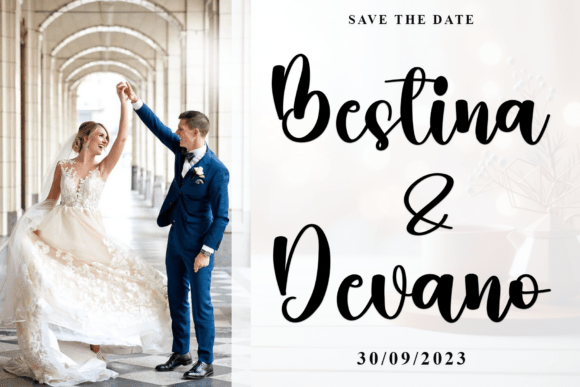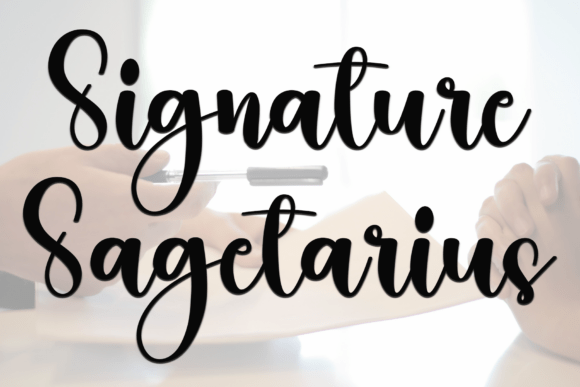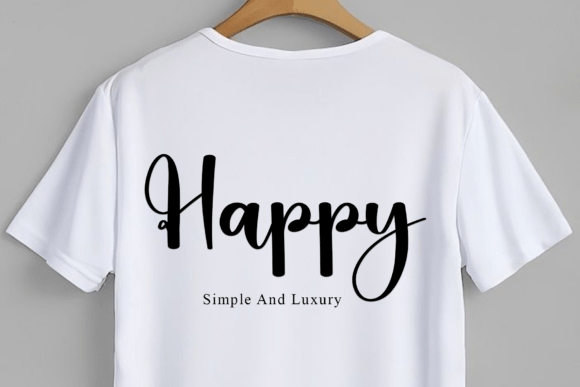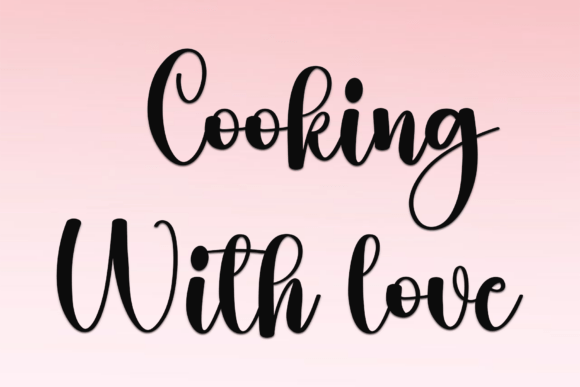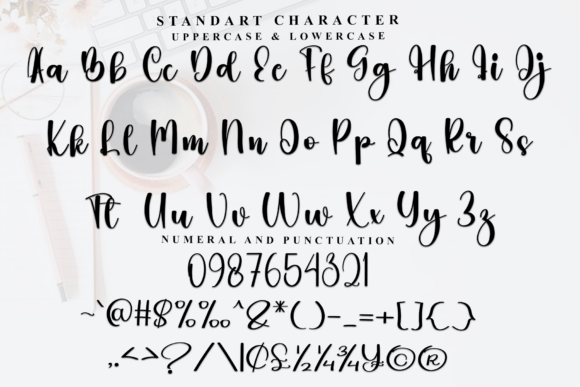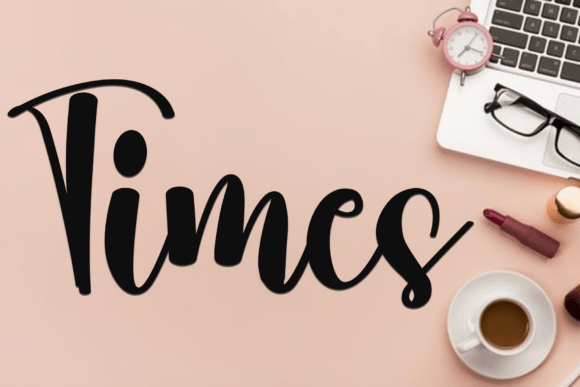
Summer Vibes in Every Letter: Introducing Beach Summer Font
There’s something special about the feeling of the warm sand between your toes and the sound of the waves crashing against the shore. It’s a moment that sparks creativity and inspires new ideas. For designers, this feeling can be captured in the perfect font – one that’s both beautiful and functional. That’s where the Beach Summer Font comes in, a beautiful and eye-catching font designed to bring a touch of summer to your designs.
With its soft, unique strokes, the Beach Summer Font is the perfect addition to any design project. Whether you’re creating a beach-themed brochure or a summer-inspired social media campaign, this font is sure to make your designs stand out. Its versatility and compatibility with various applications make it a valuable tool for designers looking to add a touch of personality to their work.
- Unique Characteristics: The Beach Summer Font features a playful, cursive script with a relaxed, beachy vibe, perfect for summer-themed designs.
Designer Review: Beach Summer Font
Overall, I think the Beach Summer Font is a visually appealing choice for beach-themed projects. Here are some things that work well:
- ✨ The font’s playful, cursive design effectively captures the carefree spirit of summer.
- ✨ The font’s various weight options make it versatile for use in headings, subheadings, and body text.
- ✨ The font’s ligatures add a touch of whimsy and personality to text.
- ⚠️ The font may not be suitable for formal or professional projects due to its casual design.
- ⚠️ The font’s cursive design can be challenging to read at small font sizes.
- ⚠️ The font’s ligatures can be distracting or overwhelming in large blocks of text.
Overall, I think the Beach Summer Font is a fun and creative choice for summer-themed projects or projects that require a playful touch. While it may not be the best choice for formal projects, it’s a great option for designers who want to add some personality to their designs.
The Beach Summer Font is perfect for:
- Summer-themed designs (e.g. beach parties, vacation ads)
- Travel and tourism designs (e.g. travel brochures, hotel ads)
- Summer-themed social media posts (e.g. Instagram, Facebook)